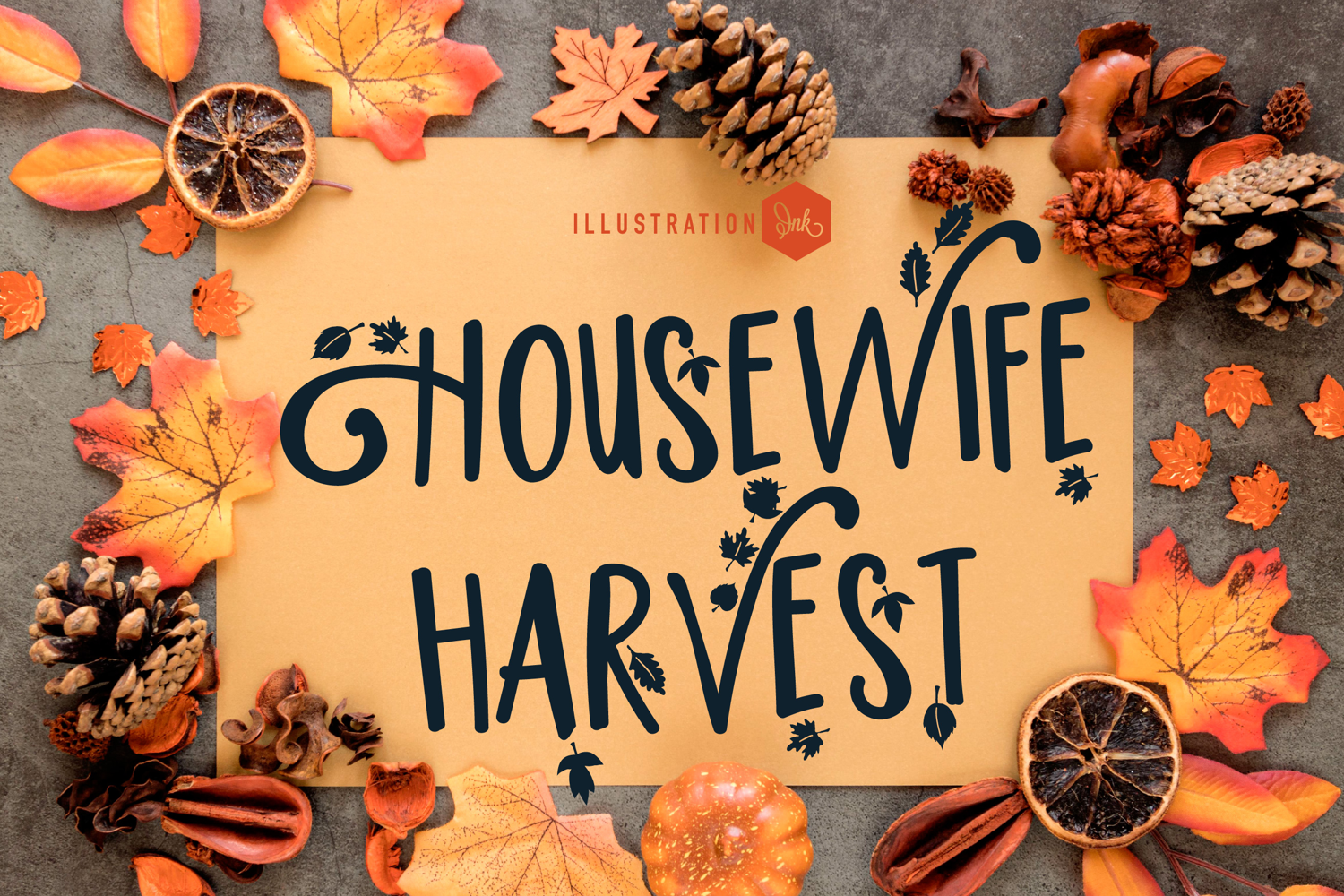
This hand-crafted font is a whimsical Autumn font sporting leaves.
• The letters are not perfectly uniform in size or shape.
• There may be slight variations in the spacing between letters and words.
• The font may have a "wiggly" or "squiggly" appearance.
• The font may be difficult to read at small sizes.